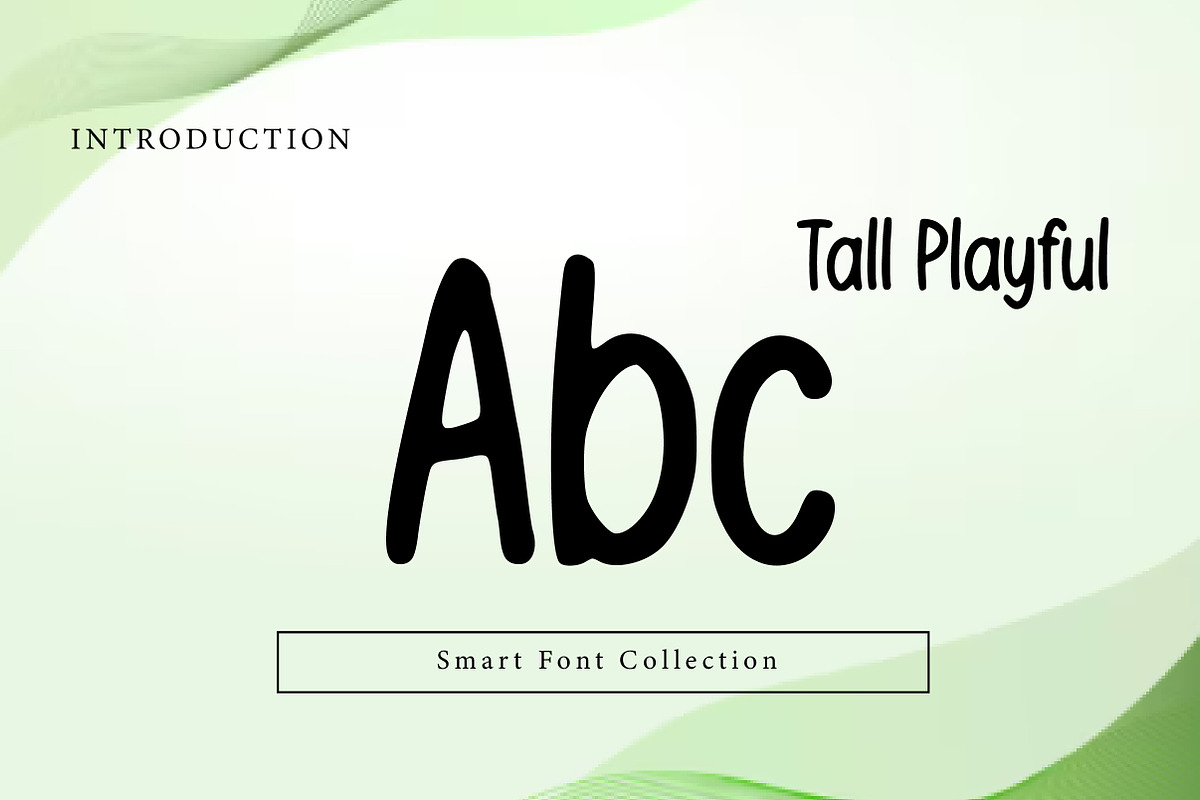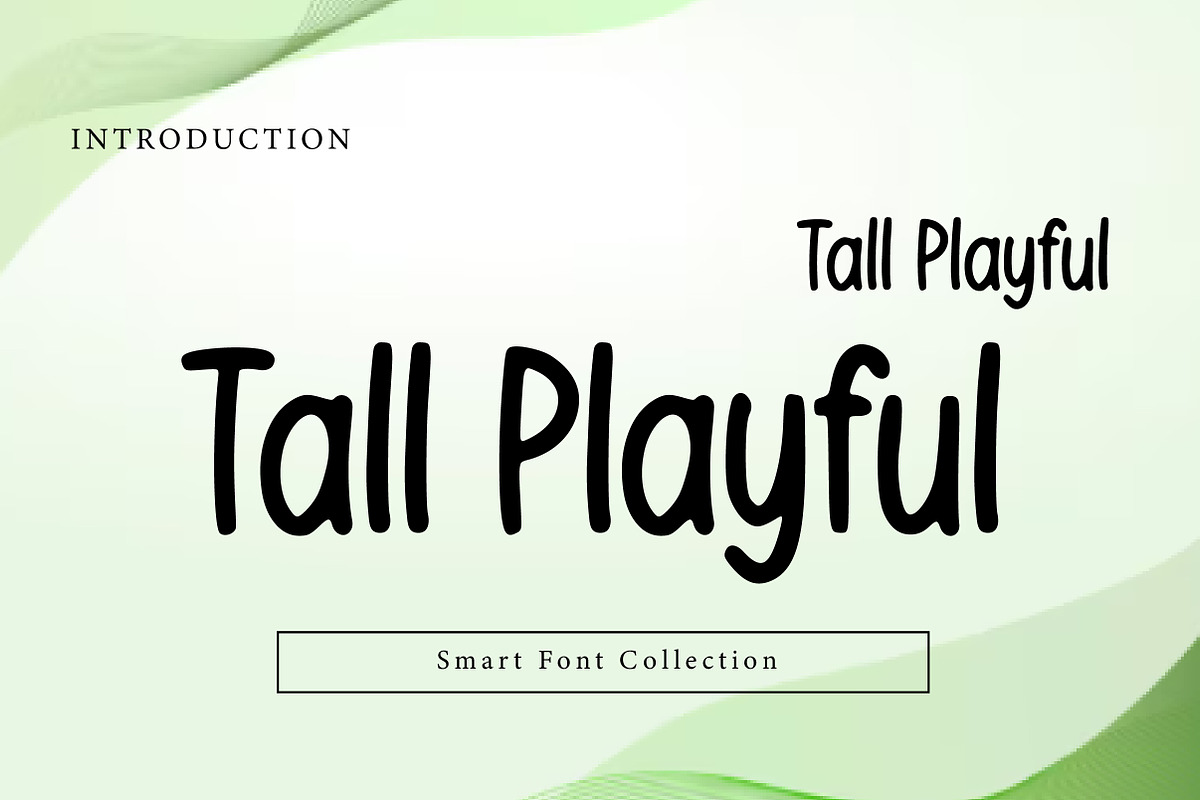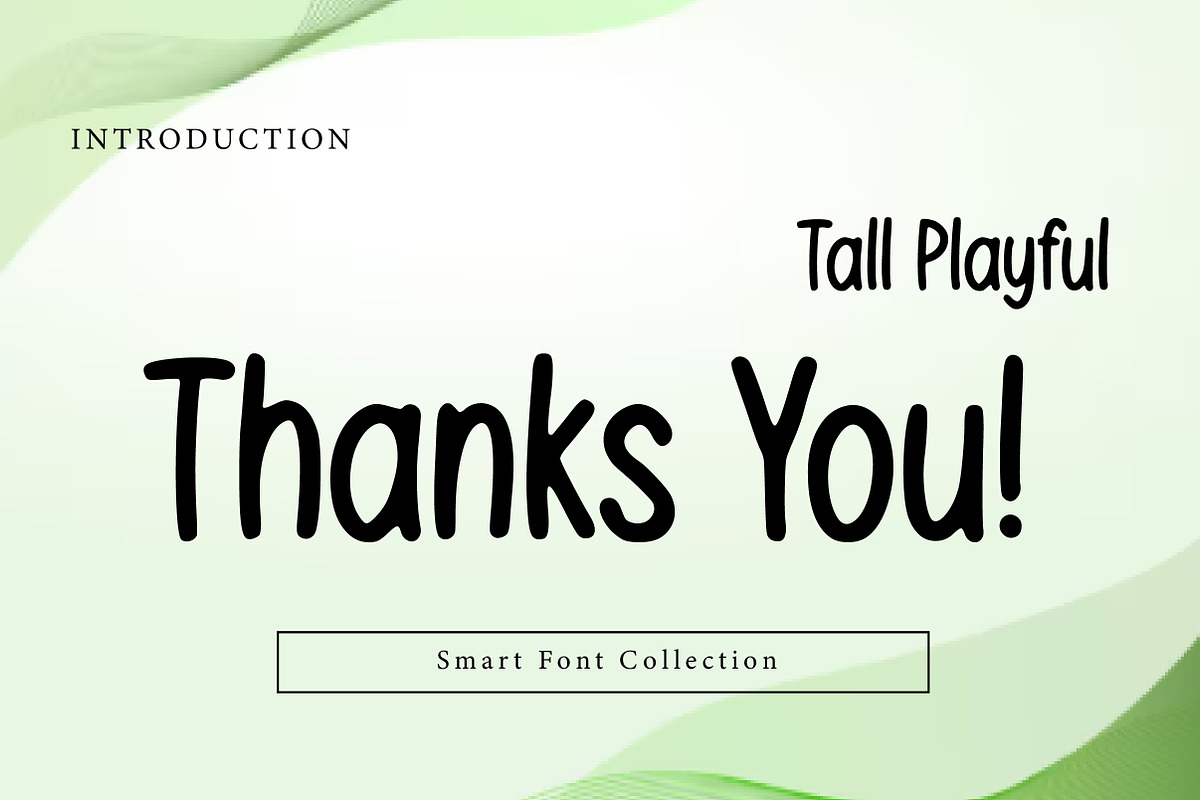
Tall playful
Tall Playful is a fun, handwritten-style display font with tall, narrow letterforms and a cheerful personality. Its smooth strokes and slightly irregular shapes give it a natural, friendly feel—perfect for kids’ designs, social media graphics, posters, branding, invitations, stickers, and creative projects. The vertical proportion makes headlines look stylish and modern while keeping a soft and approachable vibe. Tall Playful adds height, charm, and character to any design.